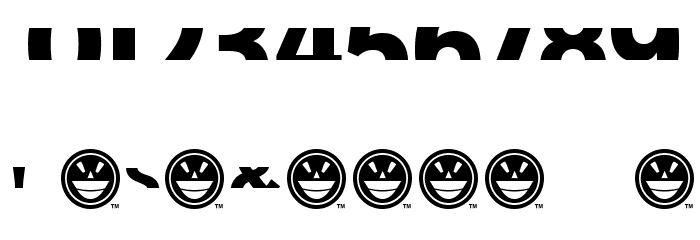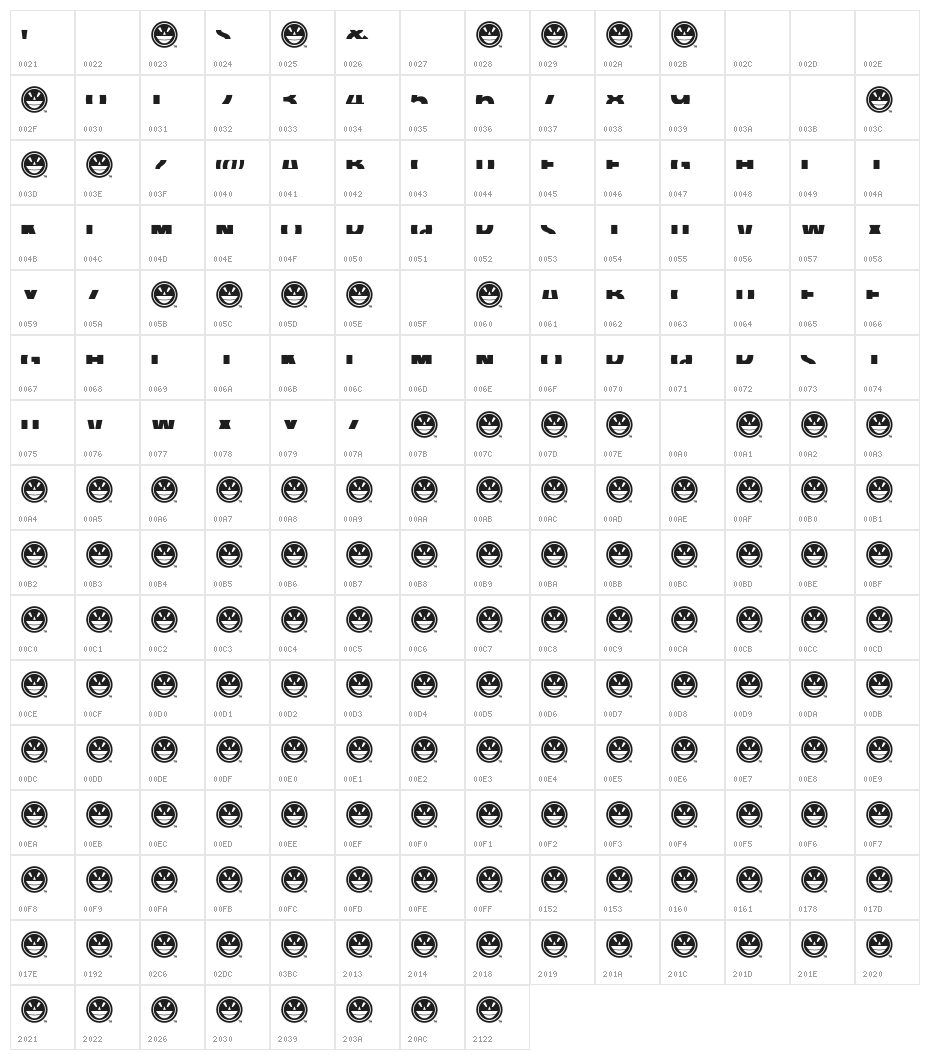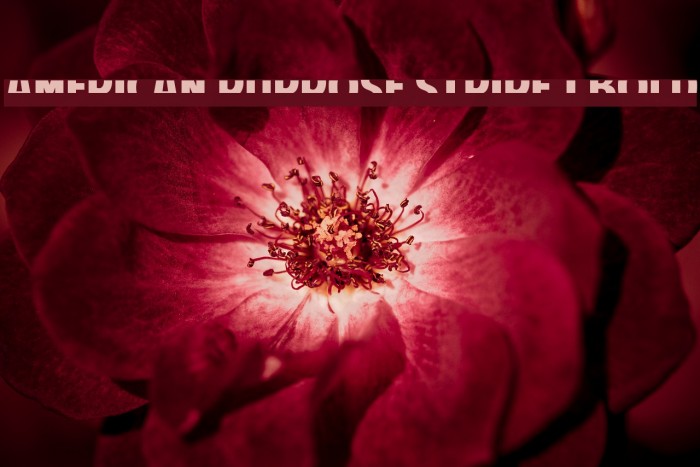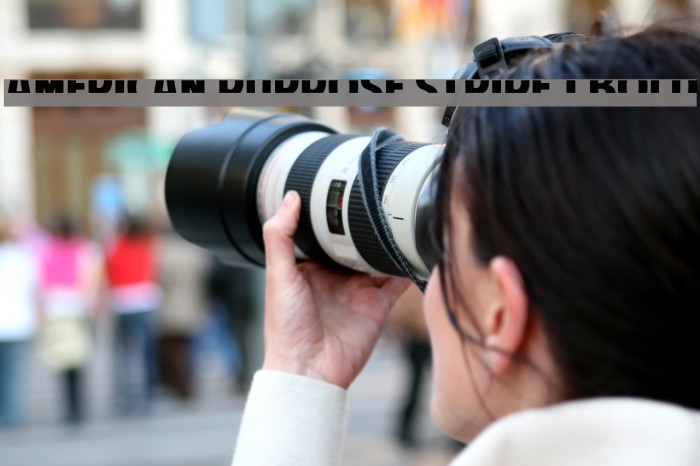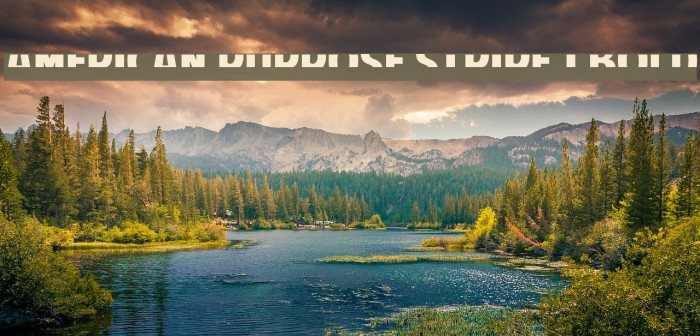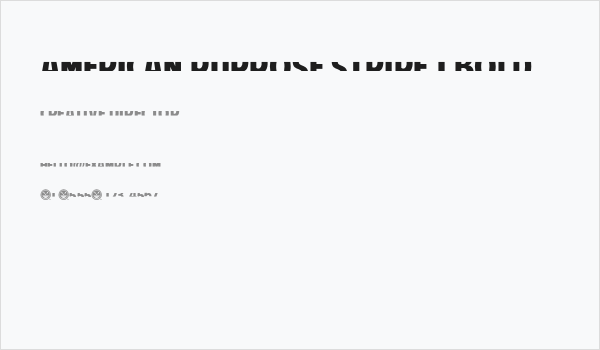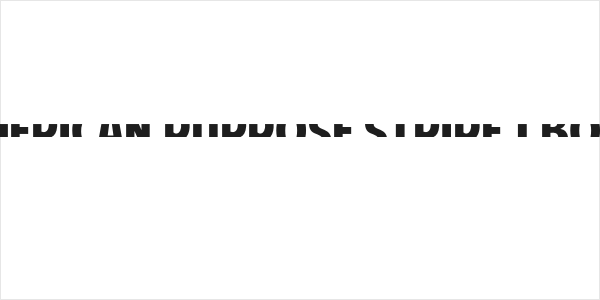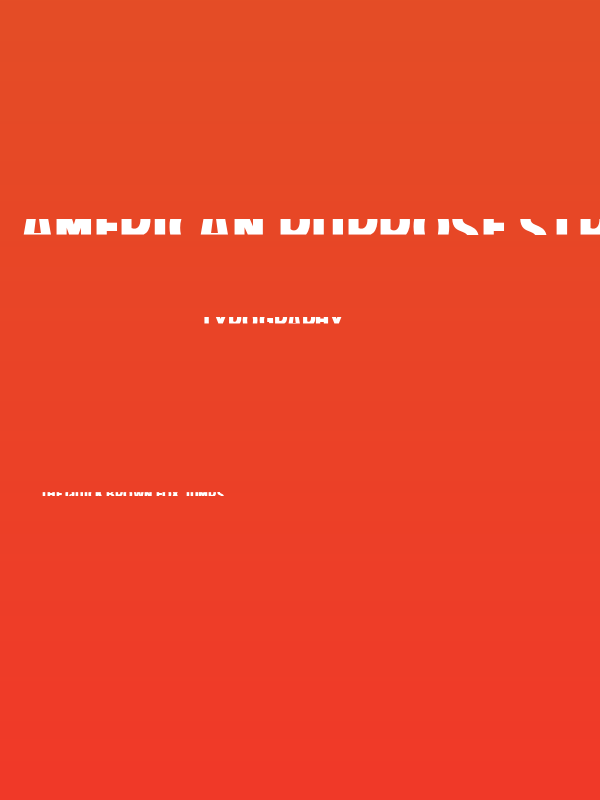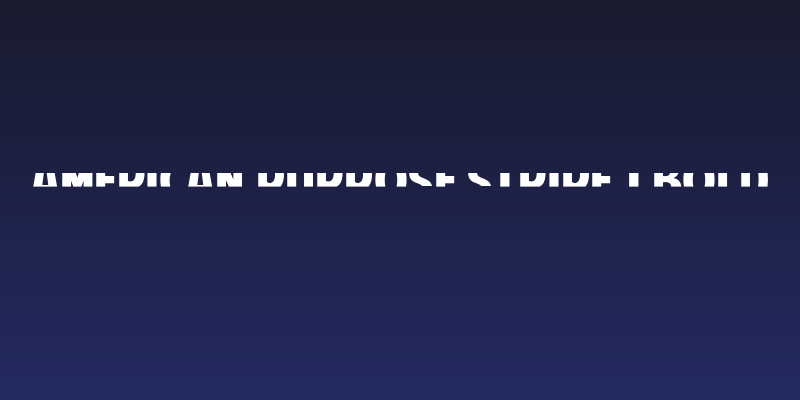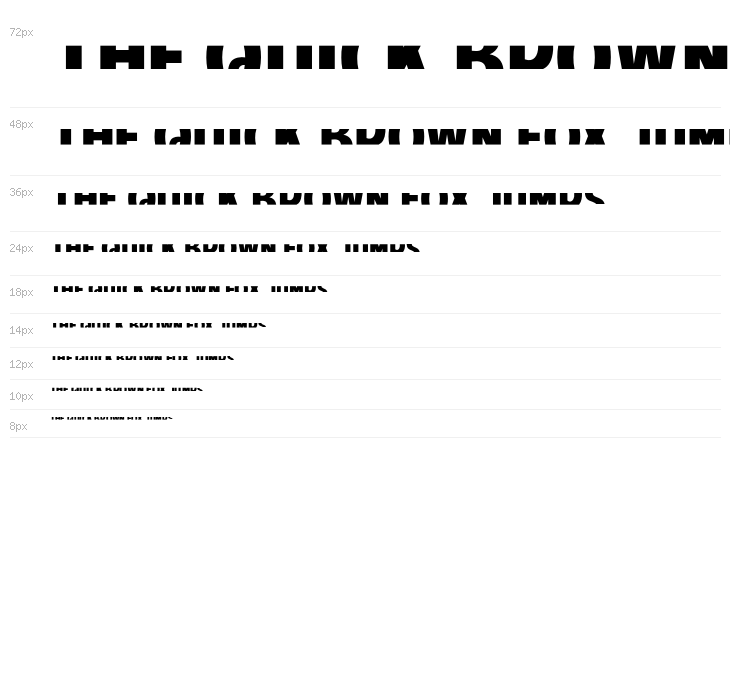
American Purpose STRIPE 1 Bold Font
American Purpose STRIPE 1 Bold Description
This font features a bold, striking design with thick, block-like characters that convey a sense of strength and modernity. The uppercase letters are uniform in height, creating a cohesive and structured appearance. The lowercase letters maintain the boldness but offer a slightly more playful touch with rounded edges. Numbers are consistent with the overall bold style, ensuring readability and impact. The special characters are uniquely stylized, adding a distinctive flair to the font. This font is ideal for making a statement, with its high contrast and wide character spacing enhancing its visibility and appeal.